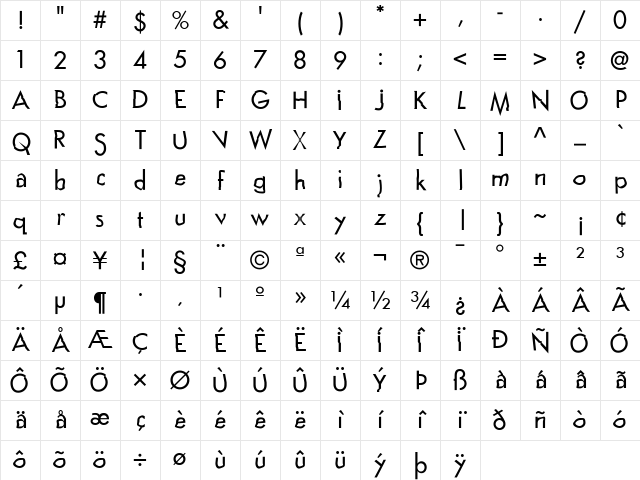
Complete ITCYomama Medium glyph index. Displaying only characters natively supported by ITCYomama Medium font.
ITCYomama is a composed and adaptable typeface that performs quietly and consistently across a wide range of design contexts.
Pro Tip: Use ITCYomama in both headline and body roles to test its range before committing to a single application.